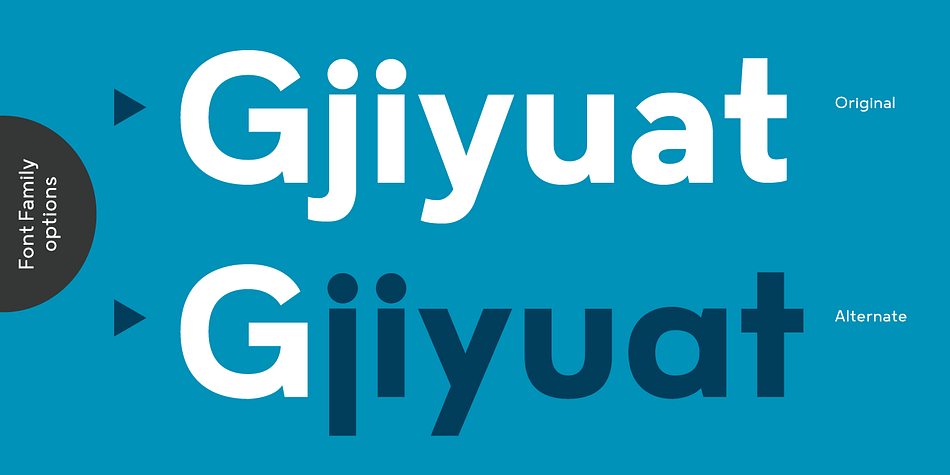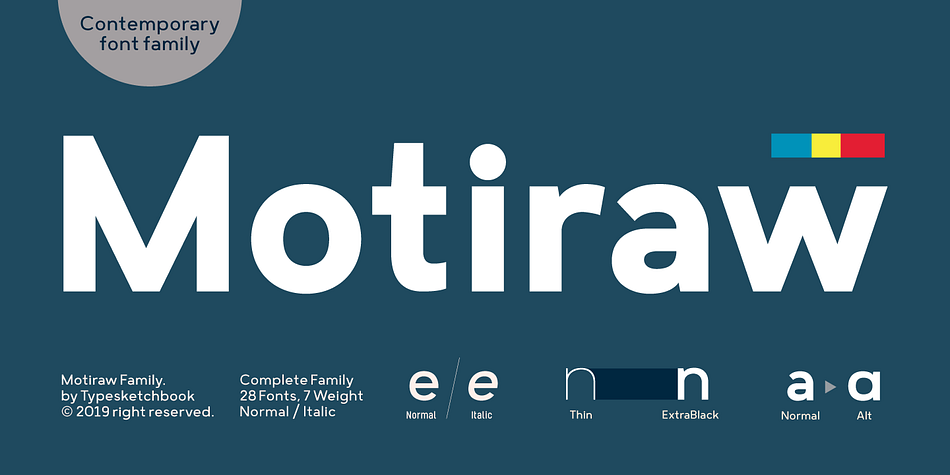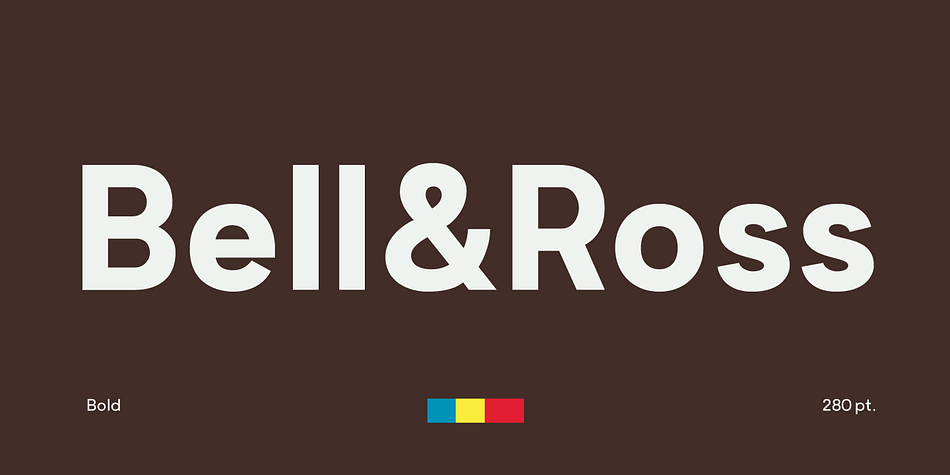
Motiraw
Designed by Chatnarong Jingsuphatada and Somchai Jingsupathada, Motiraw is a sans serif font family. This typeface has twenty-eight styles and was published by Typesketchbook.
Motiraw is contemporary sans-serif typeface made up of 28 fonts across 7 weights with normal and alternate options. It’s a unique and modern sans typeface, which is well suited for a variety of typographic applications such as headlines and small texts. Motiraw font family supports multiple languages and is available as both webfont and desktop font.